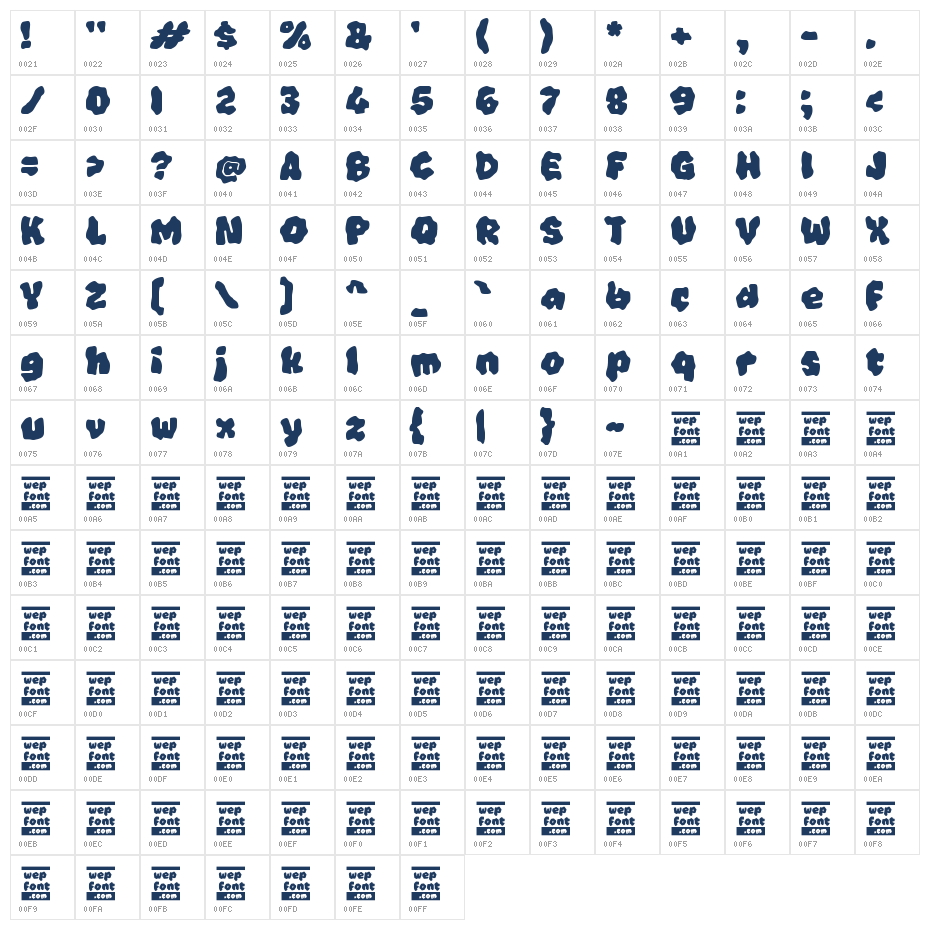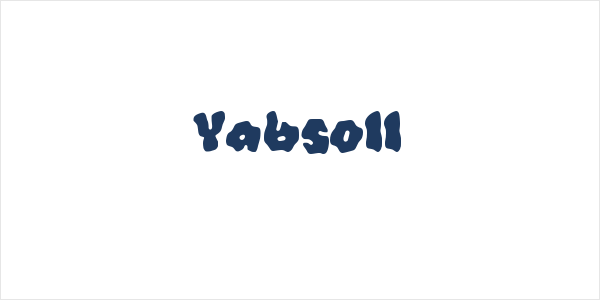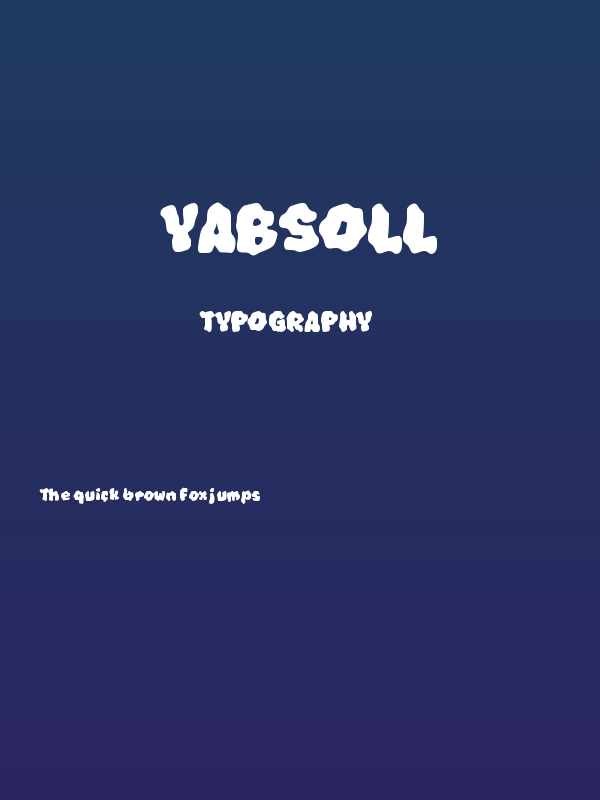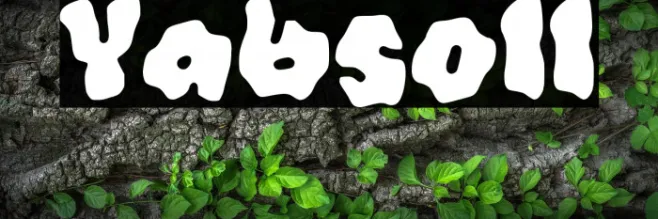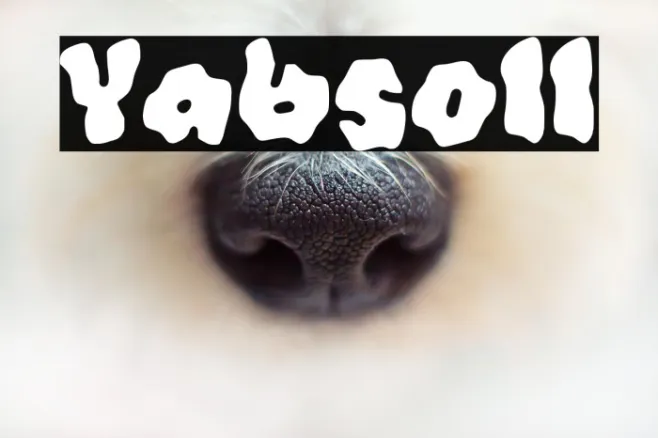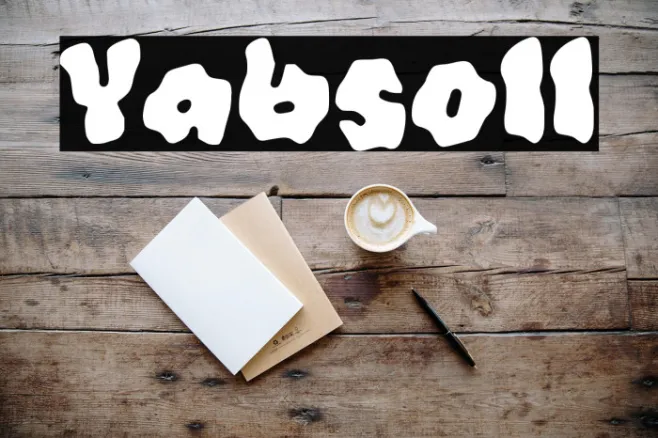
Yabsoll Font
Yabsoll Description
A bold, playful, and chunky display font with irregular, blob-like shapes that give it a fun and informal appearance.
| Overall Style | Playful, Informal, Bold |
| Use Case | Headlines, Posters, Logos, Packaging |